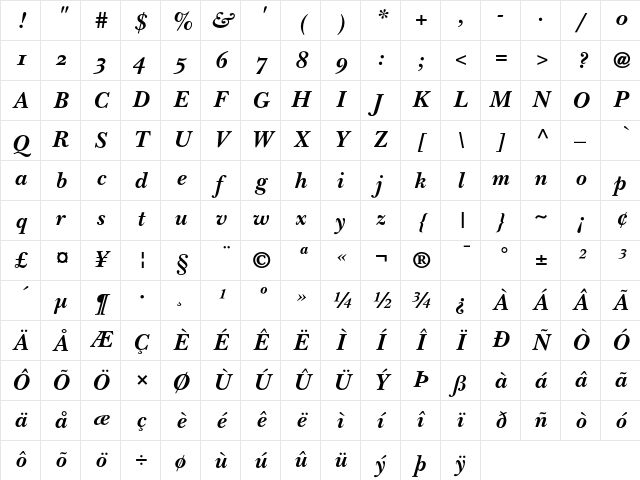
ITC New Baskerville Bold Italic Old Style Figures
Style: Bold Italic Old Style Figures
Design Context for ITC New Baskerville
ITC New Baskerville is a composed and adaptable typeface that performs quietly and consistently across a wide range of design contexts. The slanted form adds forward momentum and visual energy. Its bold stroke weight gives it real presence on the page.